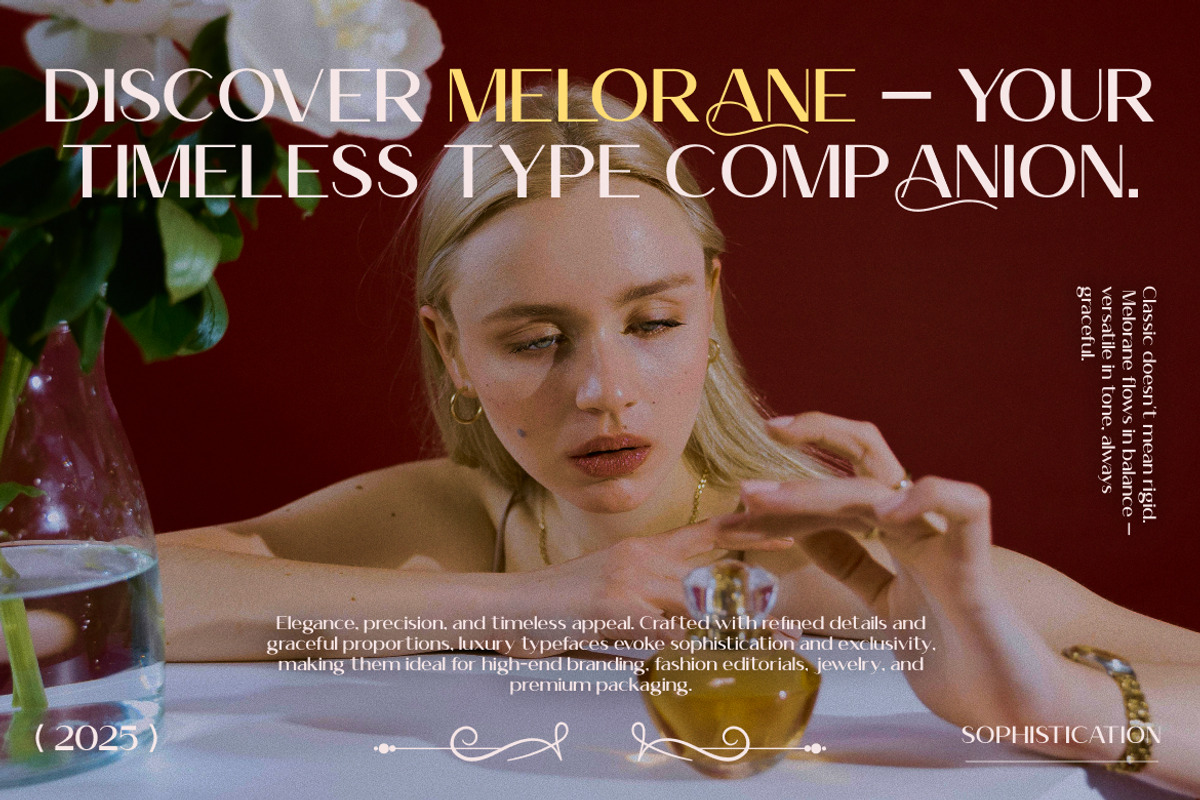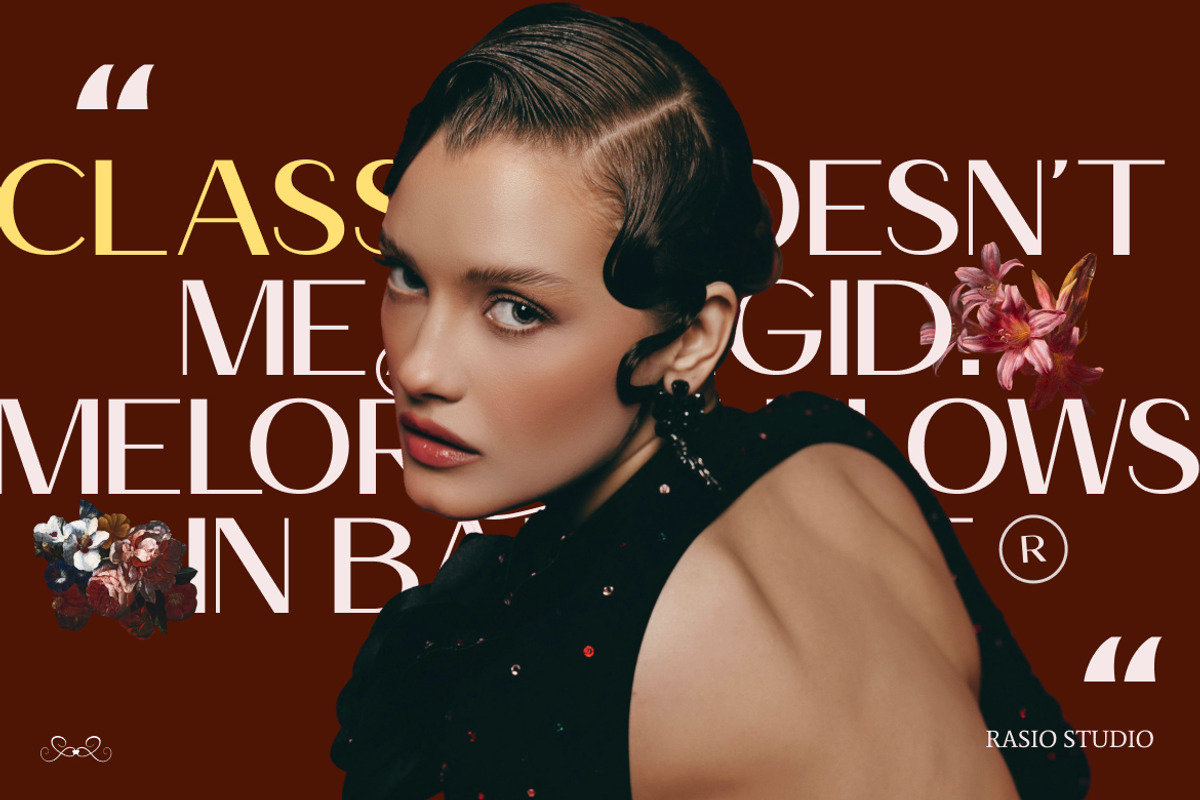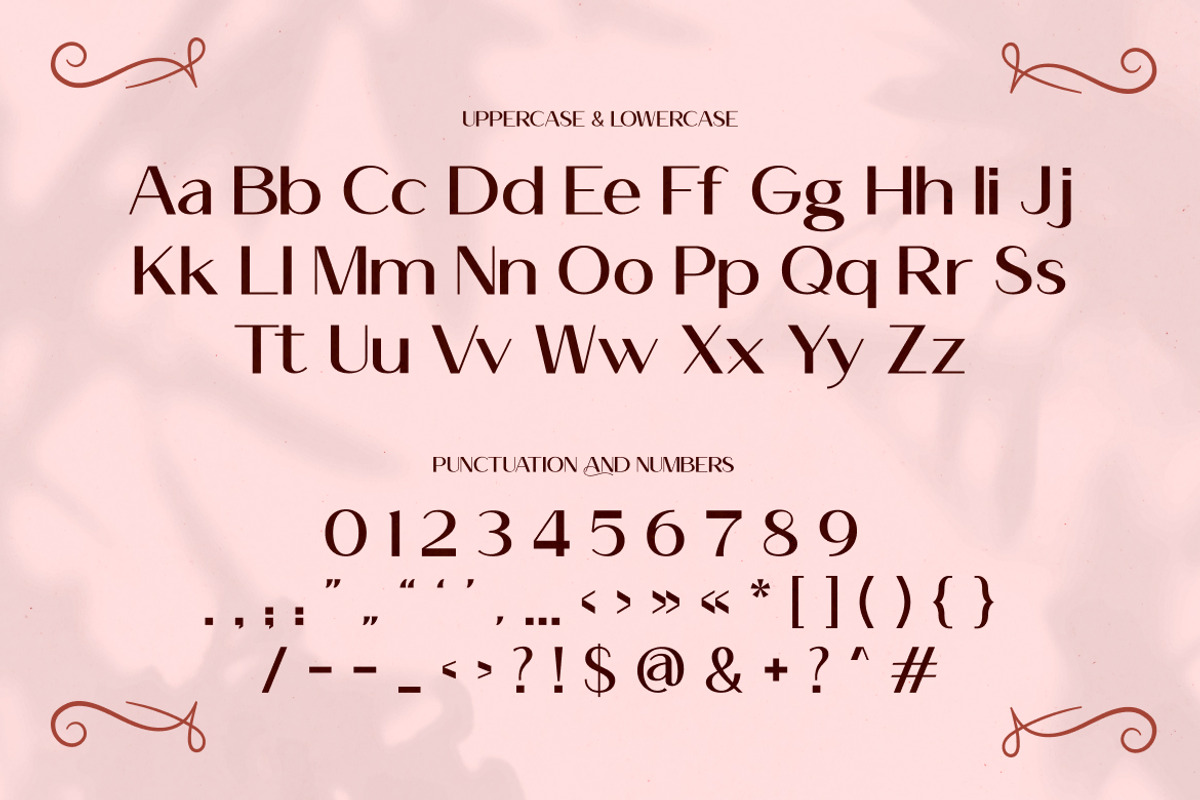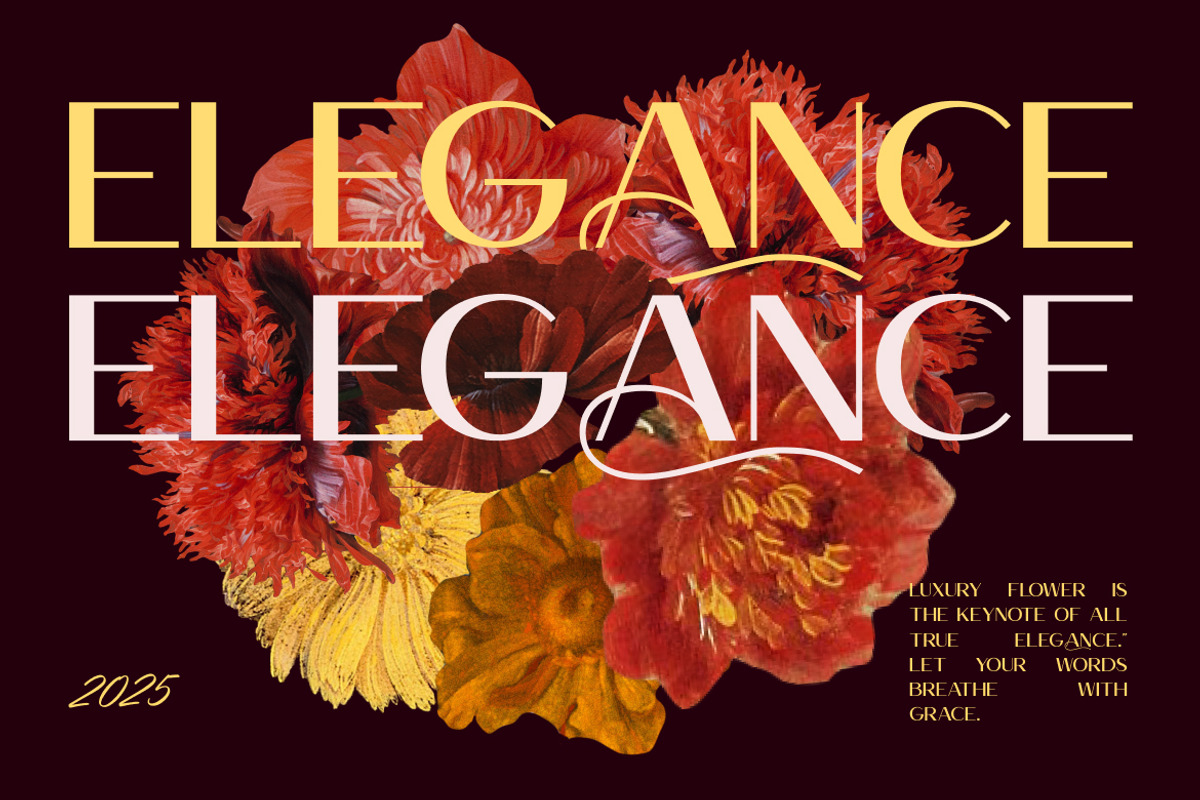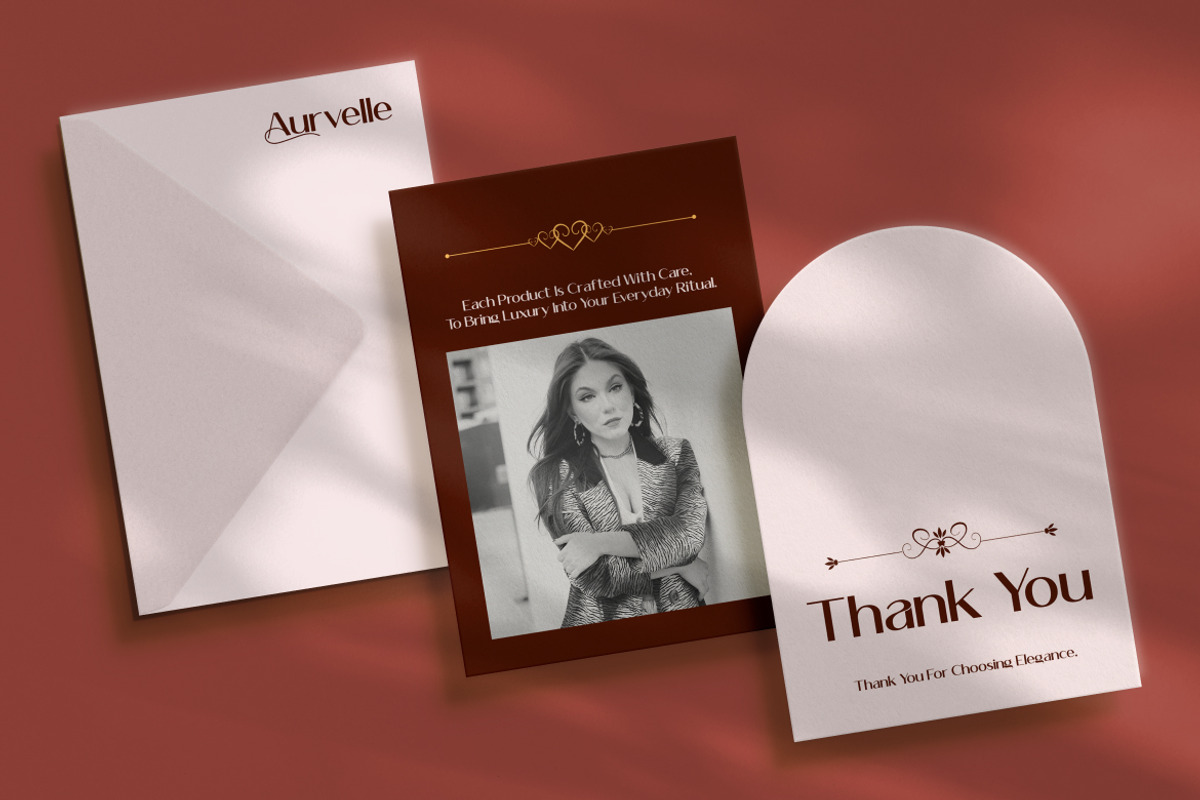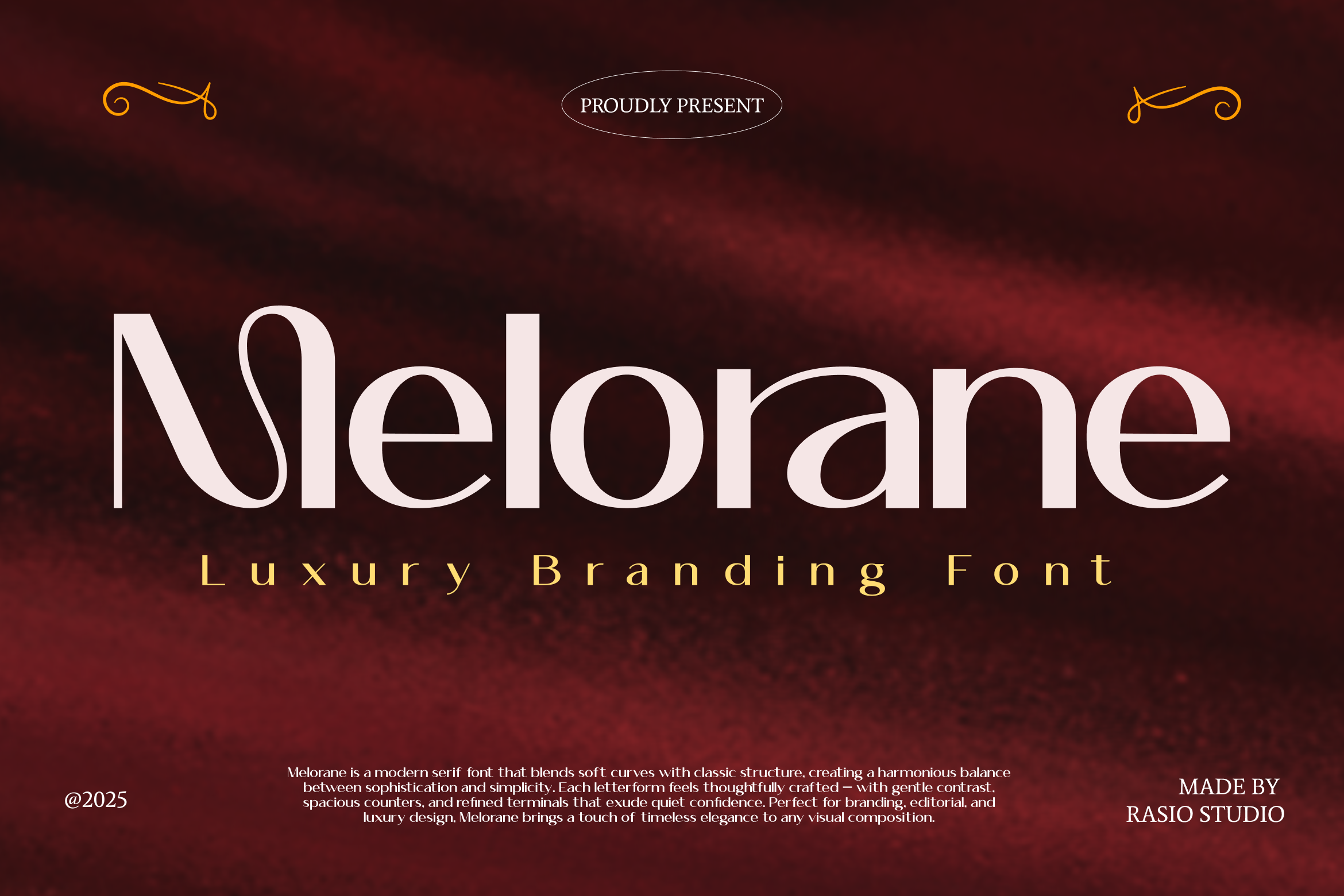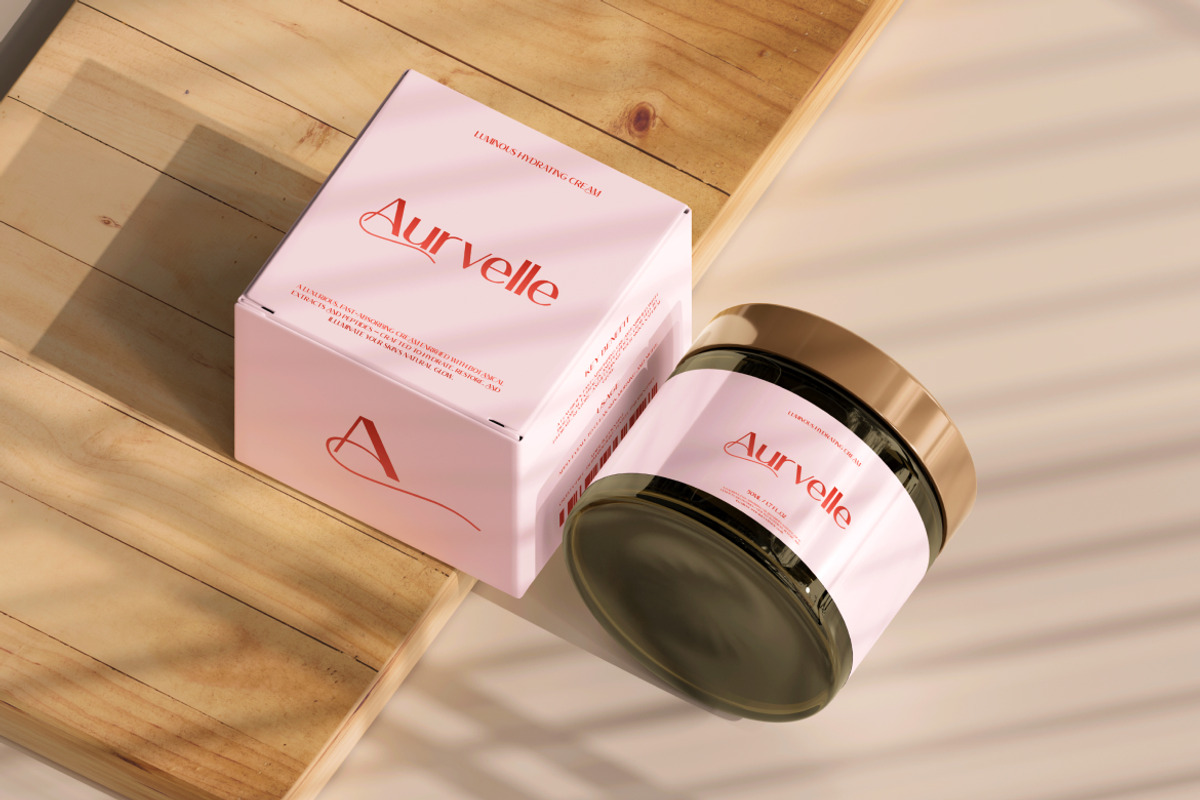
Melorane Luxury Branding Font
Melorane is a refined decorative serif typeface that combines classic elegance with contemporary design flair. Featuring graceful curves, elegant terminals, and subtle contrasts, this font brings a timeless yet modern aesthetic to creative projects. The family includes uppercase and lowercase letters, numerals, punctuation, and stylistic alternates, delivered in OTF/TTF/Webfont formats with extended language support.
Melorane is ideally suited for design projects that demand sophistication and personality. Its elegant forms make it perfect for high‑end fashion branding, luxury product packaging, wedding and invitation design, boutique logos, editorial layouts, magazine covers, elegant social media templates, and artistic posters.
- Stylish modern serif with graceful curves and decorative accents
- Combining classic proportions with contemporary flourish
- Distinctive terminals and soft contrast for visual elegance
- Smooth transitions and balanced spacing for readability
- Includes stylistic alternates and full punctuation support
- Luxury brand identity and fashion logos
- Editorial layouts, lookbooks, and premium magazines
- Wedding invitations, signage, and event stationery
- High‑end product packaging and boutique labels
- Elegant social graphics, lifestyle content
Supports numerals, punctuation, and extensive symbol set
Melorane brings elegant sophistication to your design